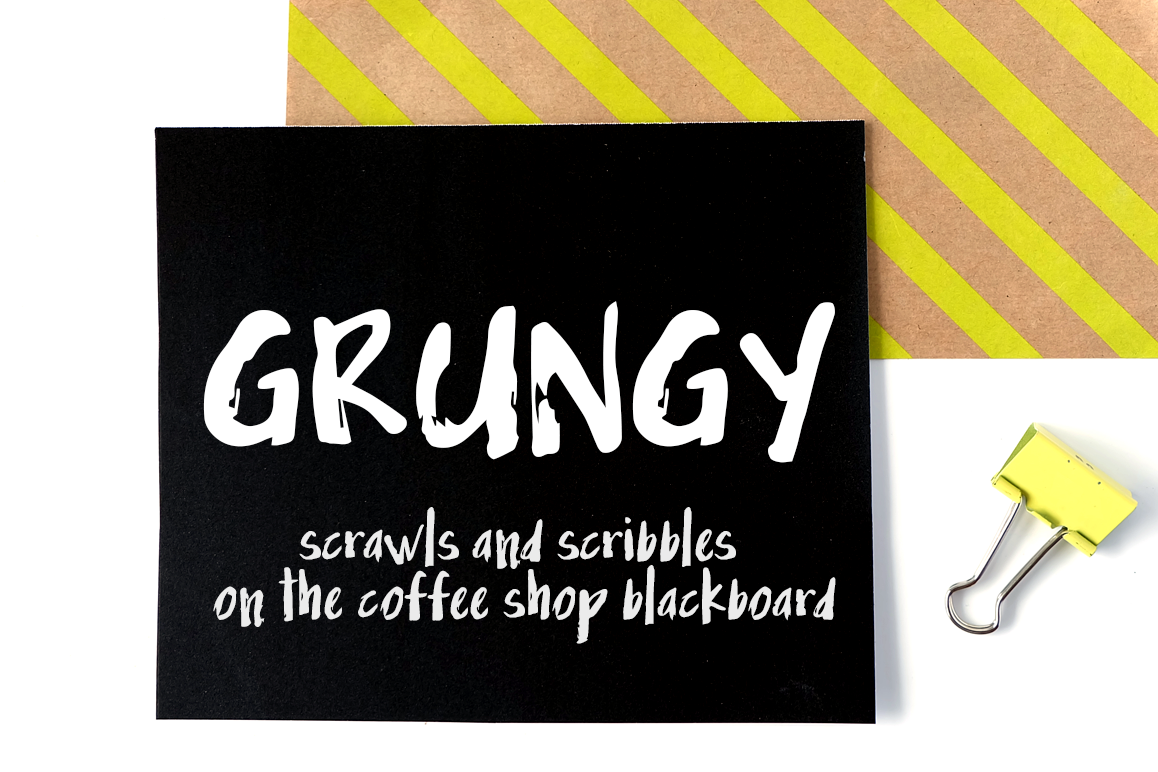
Grungy
Mix Grungy
Mix Grungy, is a great display typeface that replicates scrawls and scribbles on coffee shop blackboards, fit for handmade and DIY themed projects.